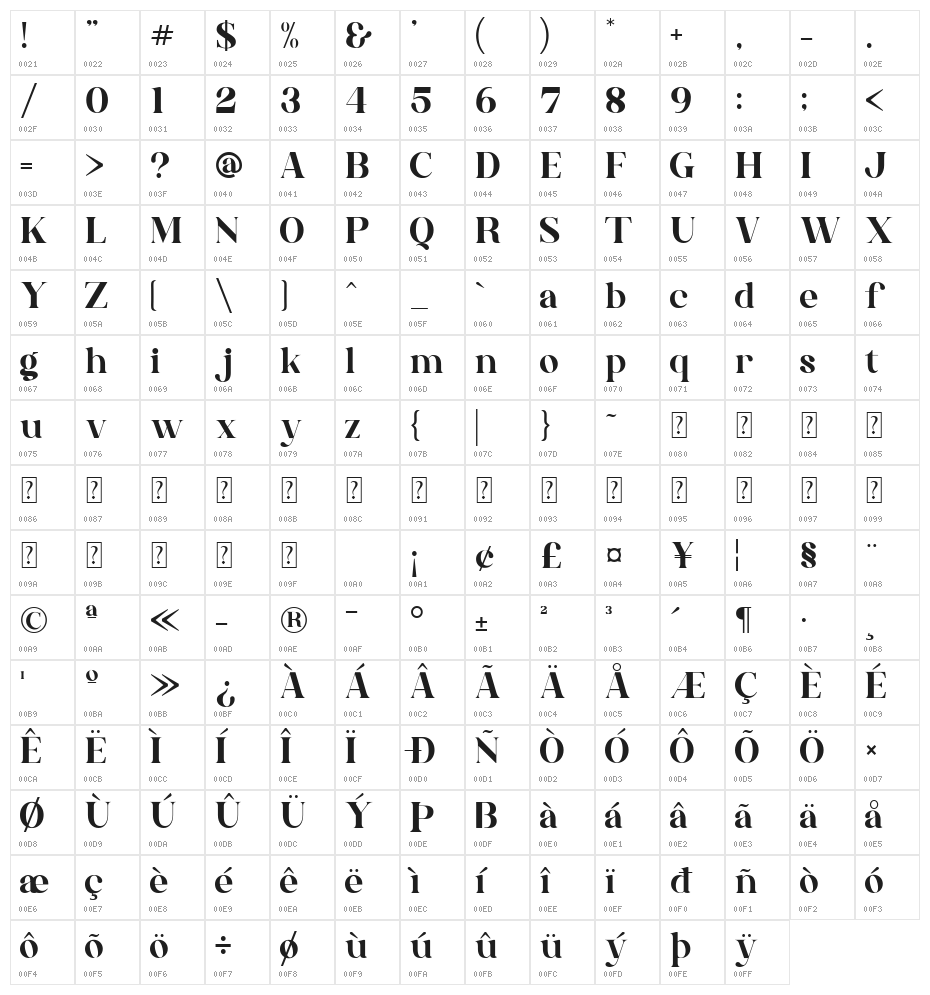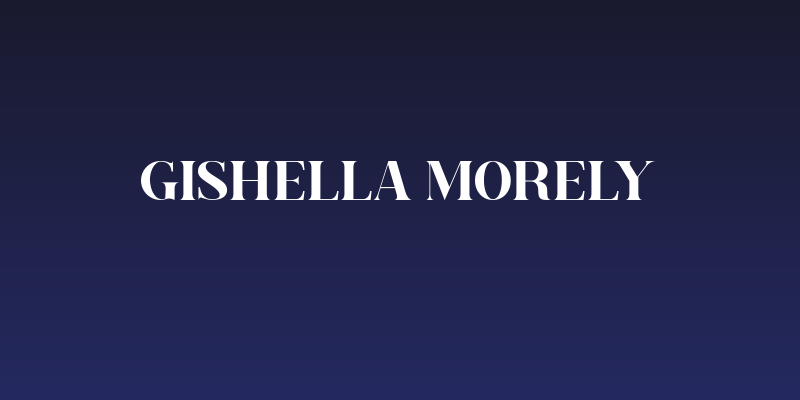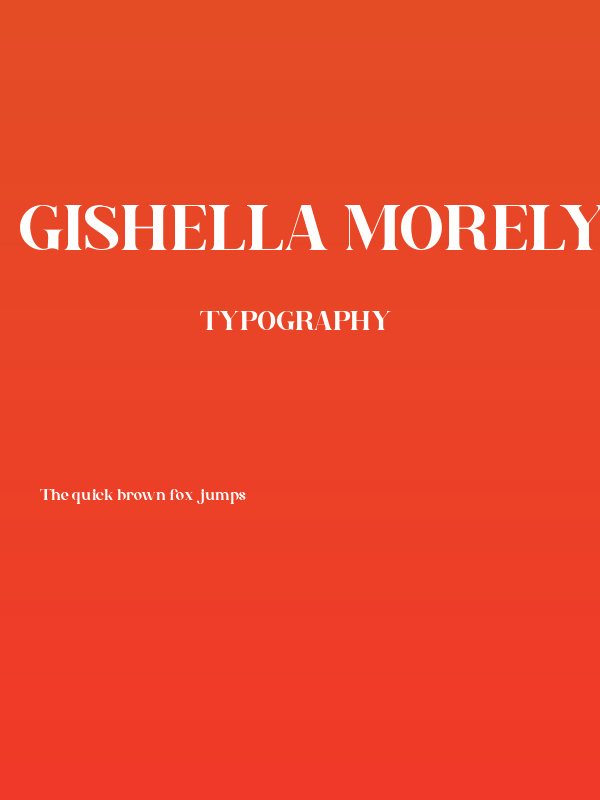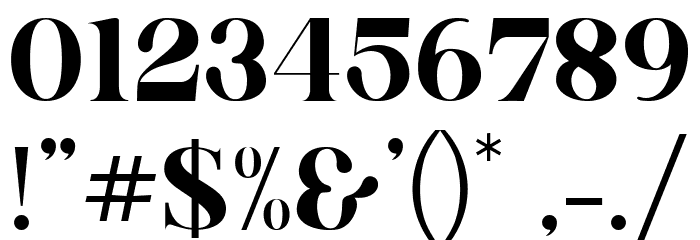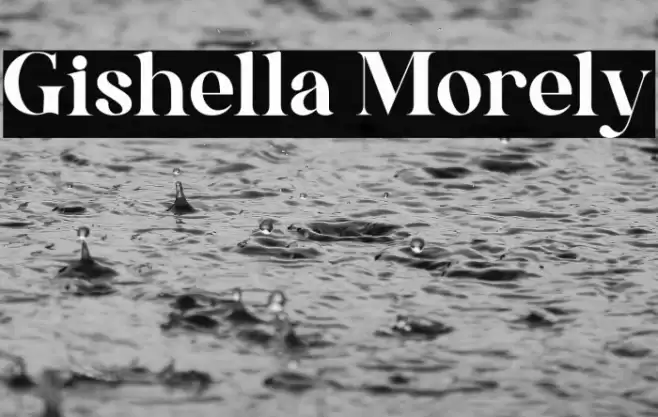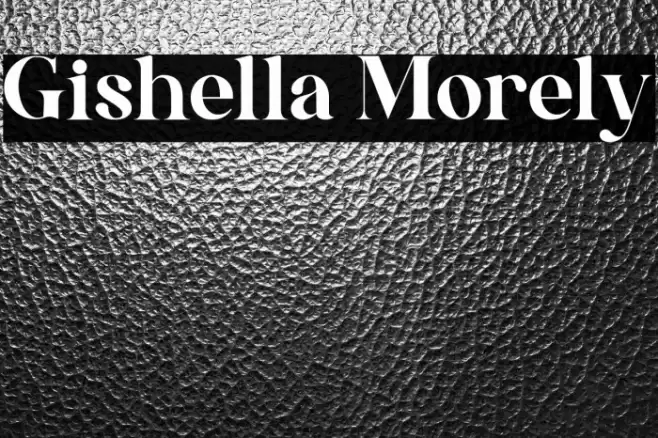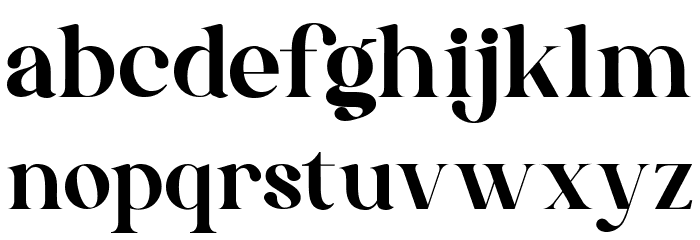
Gishella Morely Font
This font features a classic serif style with elegant, high-contrast strokes that give it a sophisticated and timeless appearance. The uppercase letters are bold and commanding, while the lowercase letters maintain a graceful balance with slightly rounded edges. The numerals are clear and distinct, making them easily readable. Special characters are designed with the same attention to detail, ensuring consistency throughout. The overall design is suitable for projects that require a touch of elegance and formality.
| Proposed Projects | Ideal for luxury branding, editorial design, wedding invitations, and formal event programs. |